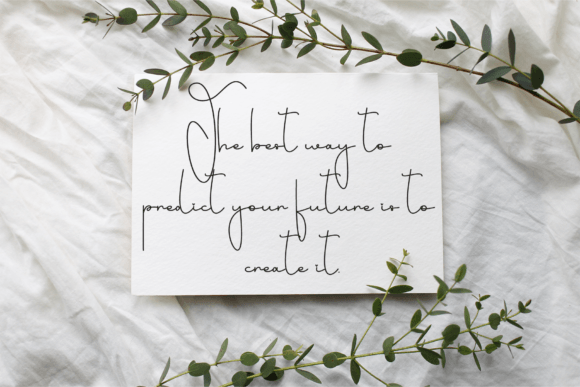
Handwriting Font
Handwriting a script font is a style of writing that looks like natural, flowing handwriting. The letters are usually connected, smooth, and elegant, like someone writing with a pen in a fancy way. It’s often used for invitations, logos, and decorative designs.